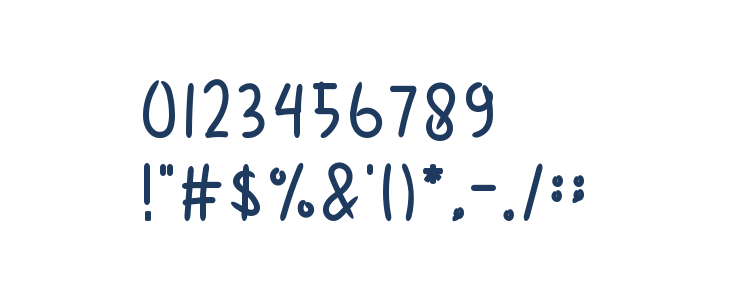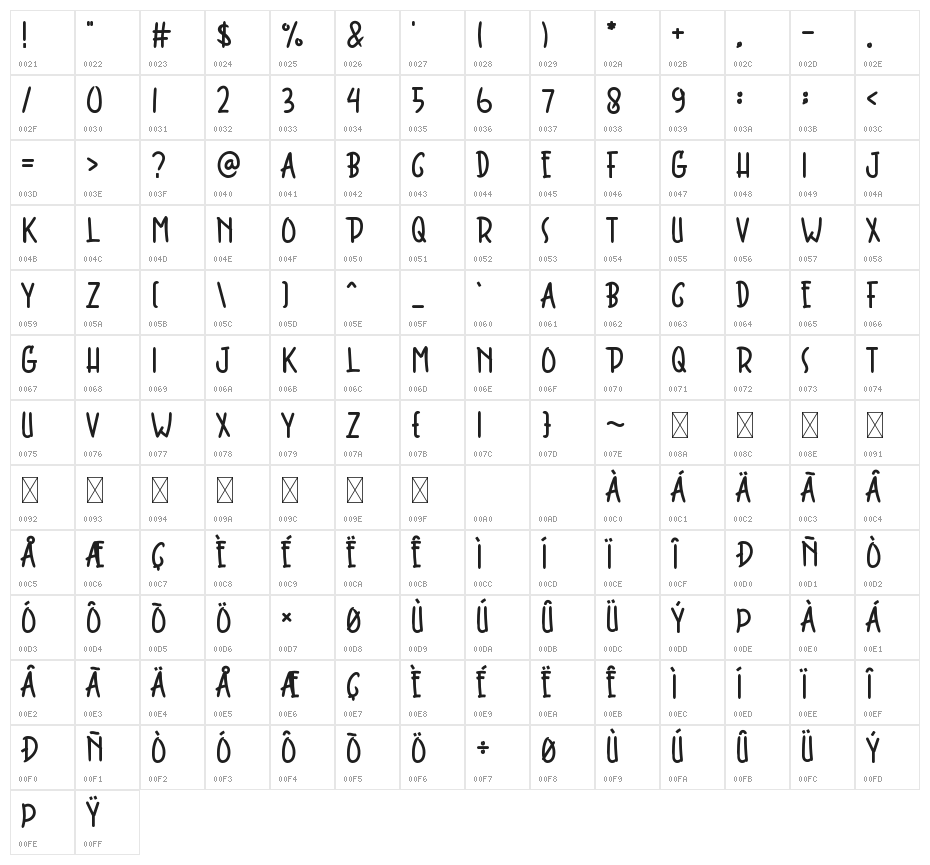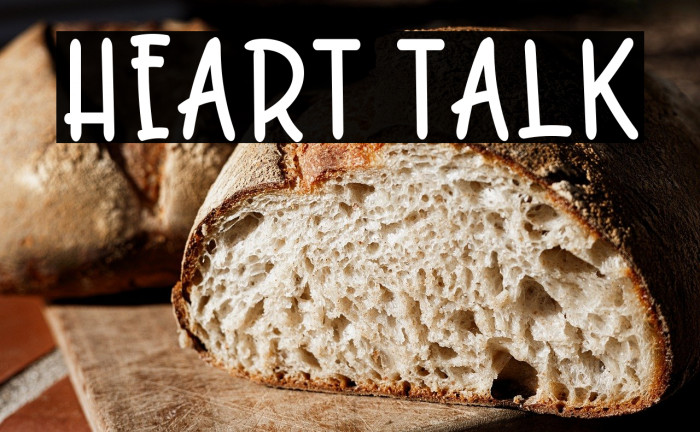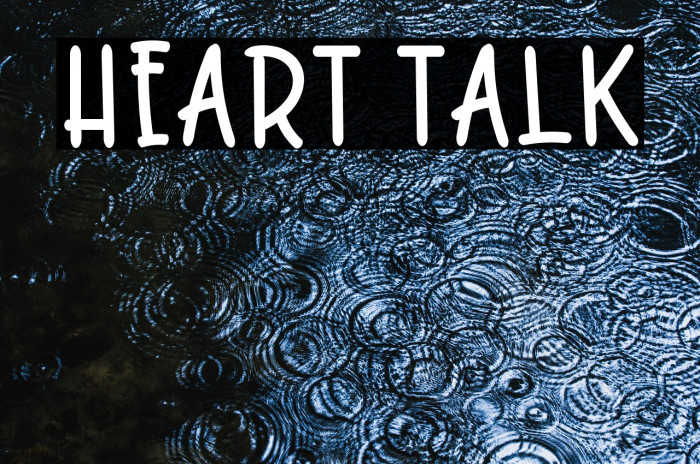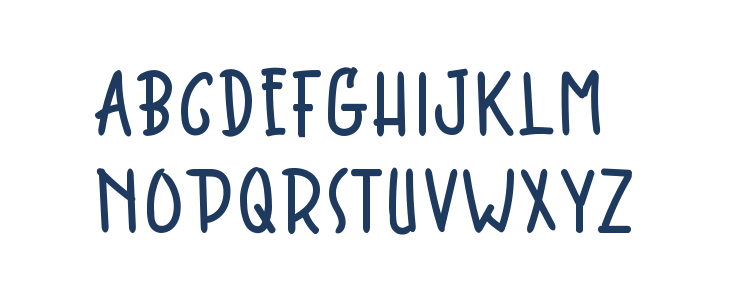
Heart Talk Font
Heart Talk Description
This playful and whimsical font features a handwritten style with a casual and friendly appearance. The characters are slightly irregular, giving it a personal touch that mimics natural handwriting. The strokes are consistent in weight, providing a uniform look across all characters. The font includes both uppercase and lowercase letters, numbers, and a variety of special characters, making it versatile for different uses. Its informal style is perfect for projects that require a personal or creative touch, such as greeting cards, invitations, or social media graphics.
| Overall Style | Casual |
| Use Case | Headlines, Informal text, Creative projects |
| Proposed Projects | Ideal for greeting cards, invitations, social media graphics, and personal projects. |